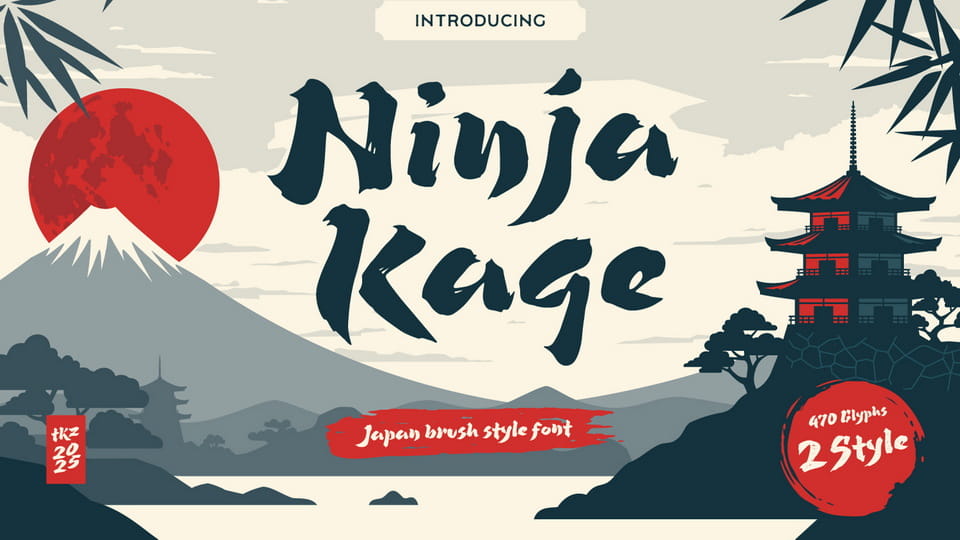
Download Ninja Kage fot, a dynamic brush typeface with a natural feel, inspired by Japanese calligraphy. With numerous alternates and ligatures, it makes your audience question whether it’s a font or real handwriting.
Designer: Tkzgraphic